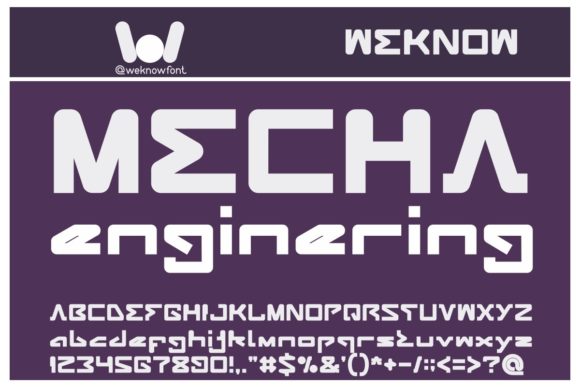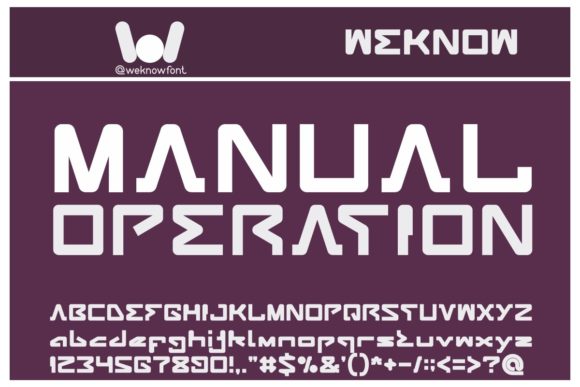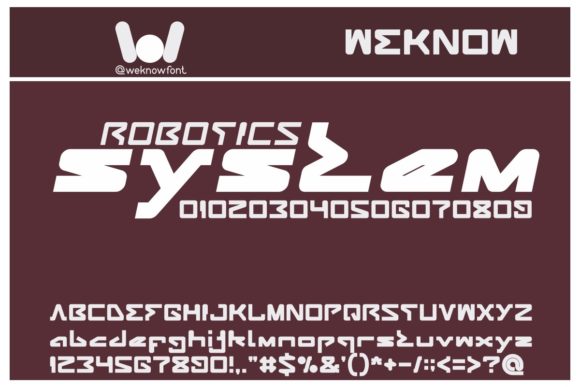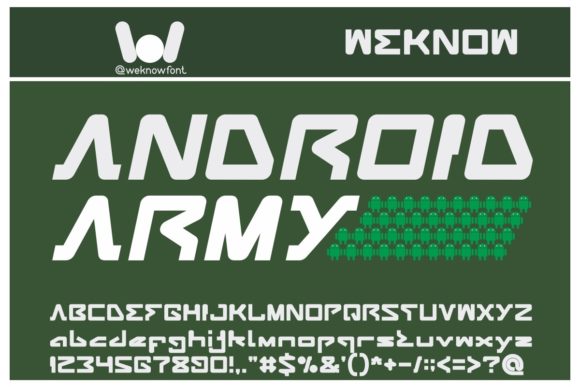
Introducing Android Robot Font: Elevate Your Designs with a Techno-Styled Display Font
In the world of design, fonts play a crucial role in conveying the message and tone of a project. Whether you’re working on a logo, brochure, or website, the right font can make all the difference. If you’re looking for a font that can add a touch of modernity and sophistication to your designs, look no further than Android Robot Font. This techno-styled display font is an incredibly versatile asset that can elevate any creation, regardless of the topic or industry.
What is Android Robot Font?
Android Robot Font is a unique and stylish display font that is perfect for designers and crafters looking to add a techno touch to their work. With its sleek lines and futuristic design, this font is sure to grab attention and leave a lasting impression. Whether you’re working on a project for a tech company, a fashion brand, or a personal blog, Android Robot Font is an excellent choice.
Key Features of Android Robot Font
- Techno-styled design: Android Robot Font boasts a modern and edgy design that is perfect for projects that require a cutting-edge look.
- Highly versatile: This font can be used for a wide range of projects, from logos and brochures to websites and social media graphics.
- Easily readable: Despite its futuristic design, Android Robot Font is highly legible, making it perfect for use in both headings and body text.
- Customizable: With its wide range of weights and styles, Android Robot Font can be easily customized to fit your project’s specific needs.
Benefits of Using Android Robot Font
So, why should you choose Android Robot Font for your next project? Here are just a few benefits of using this amazing font:
- Adds a touch of modernity: Android Robot Font is perfect for designers who want to add a touch of modernity and sophistication to their work.
- Grabs attention: With its bold and futuristic design, Android Robot Font is sure to grab attention and leave a lasting impression.
- Versatile: This font can be used for a wide range of projects, making it an excellent addition to any designer’s font library.
- Easy to use: Android Robot Font is highly legible and easy to use, making it perfect for designers of all skill levels.
How to Use Android Robot Font
- Experiment with different weights and styles: Android Robot Font comes in a range of weights and styles, so don’t be afraid to experiment and find the one that works best for your project.
- Use it for headings and titles: Android Robot Font is perfect for use in headings and titles, where its bold and futuristic design can really make an impact.
- Pair it with other fonts: Android Robot Font can be paired with a wide range of other fonts to create a unique and stylish look.